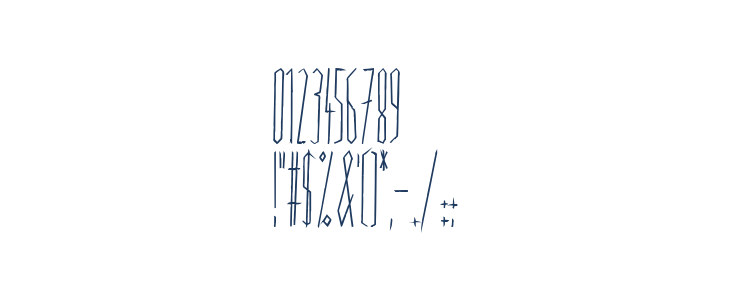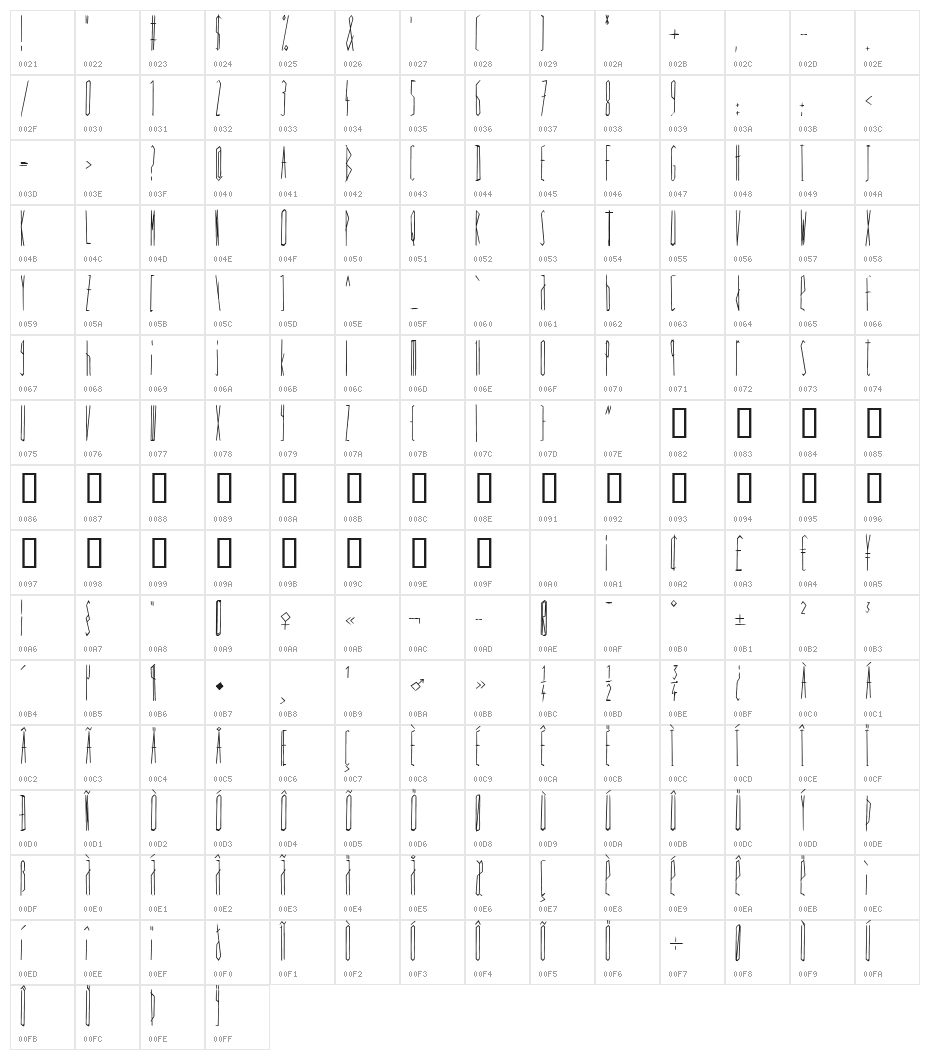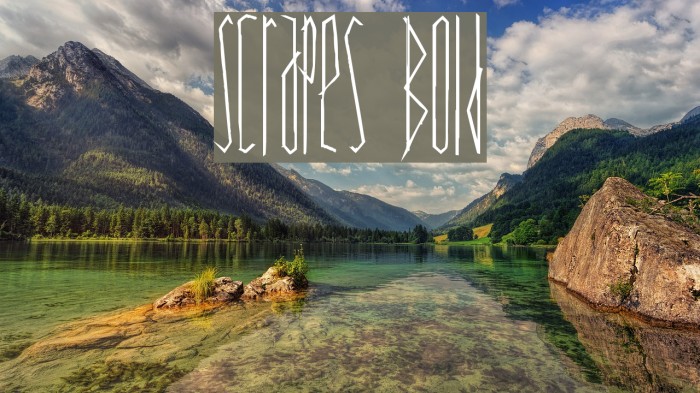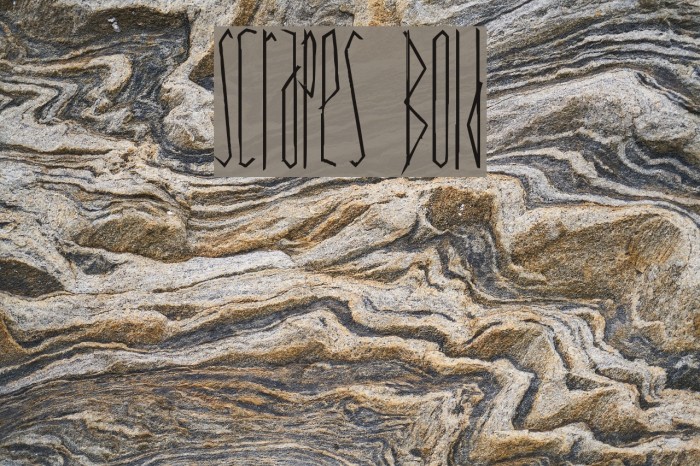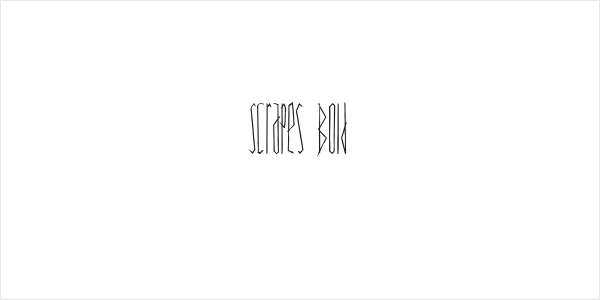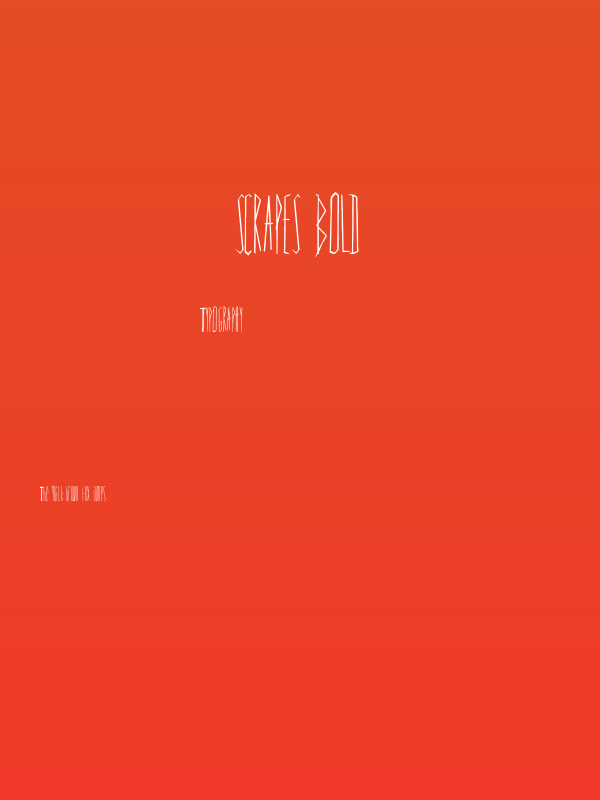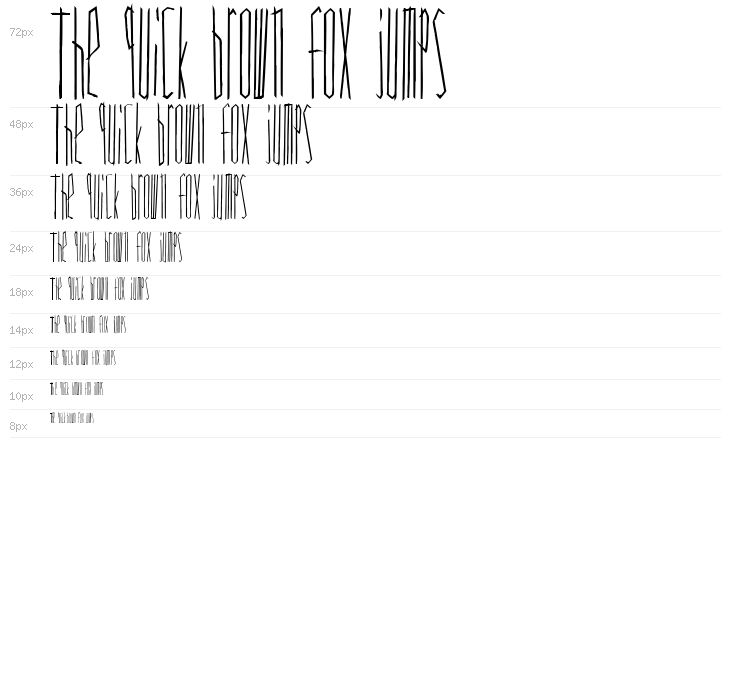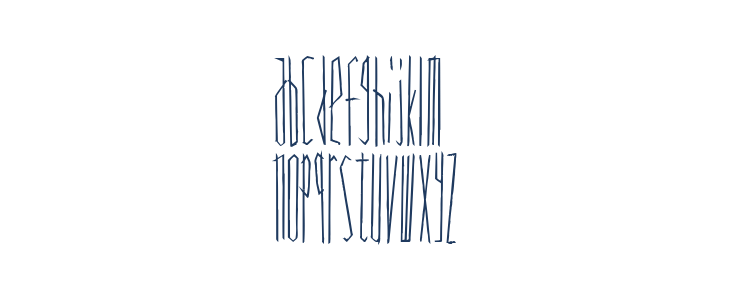
Scrapes Bold Font
Scrapes Bold Description
This font features a highly decorative and elongated design, characterized by its tall, narrow letters with sharp, angular edges. The strokes are thin and consistent, giving it a sleek and modern appearance. The uppercase and lowercase letters maintain a uniform height, creating a cohesive look. Numbers and special characters follow the same stylistic approach, ensuring a seamless integration across different text elements. The overall aesthetic is unique and artistic, making it suitable for creative and expressive projects.
| Use Case | Logos, Headlines |
| Proposed Projects | Ideal for artistic posters, album covers, fashion branding, and modern art installations. |